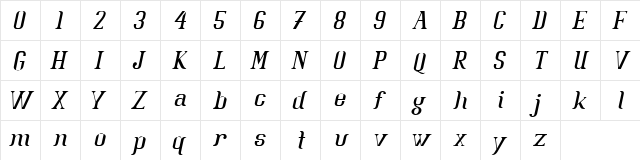
Batavia Glamore NORMAL ITALIC Italic
Design Context for Batavia Glamore NORMAL ITALIC Typeface
Batavia Glamore NORMAL ITALIC is a composed and adaptable typeface that performs quietly and consistently across a wide range of design contexts. The slanted form adds forward momentum and visual energy.
Pro Tip: Use Batavia Glamore NORMAL ITALIC for emphasis, pull quotes, and subheadings where its slanted energy can add rhythm to the layout.